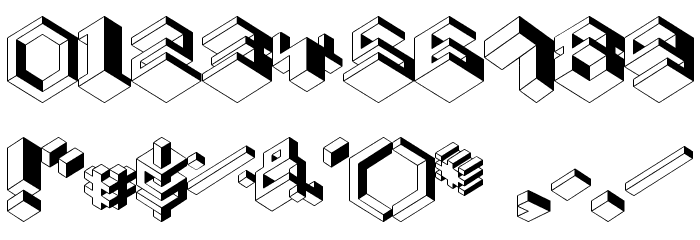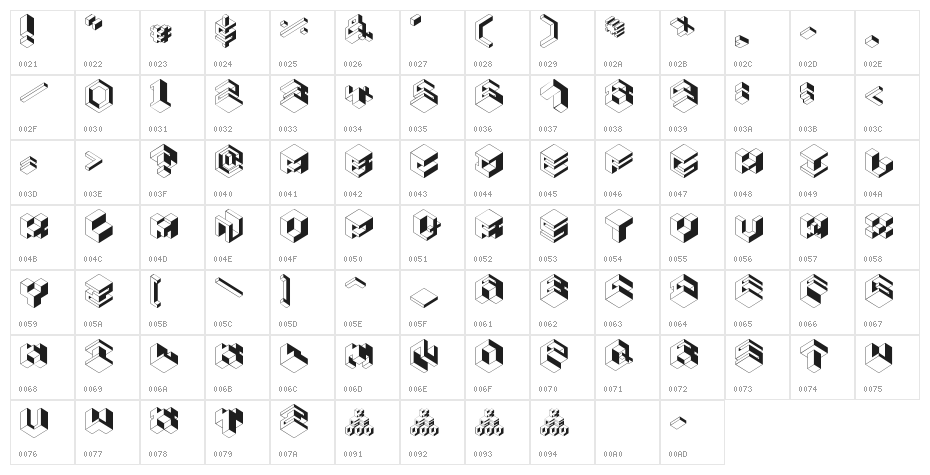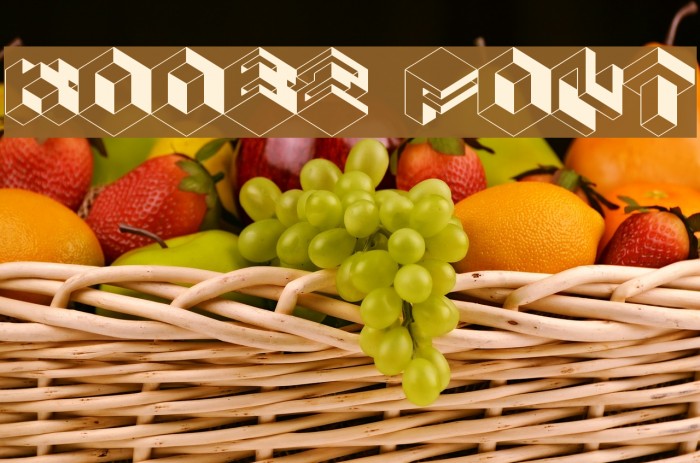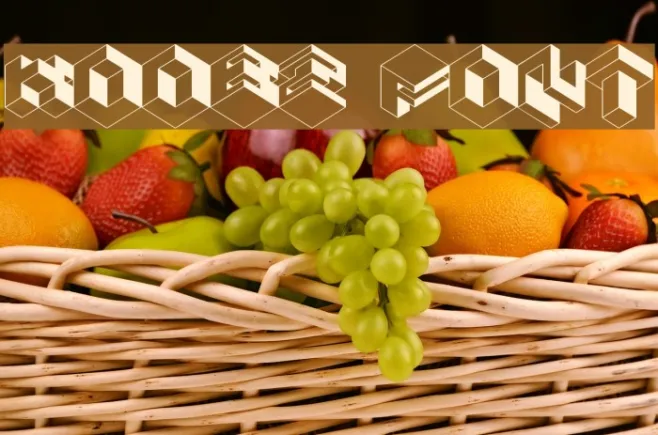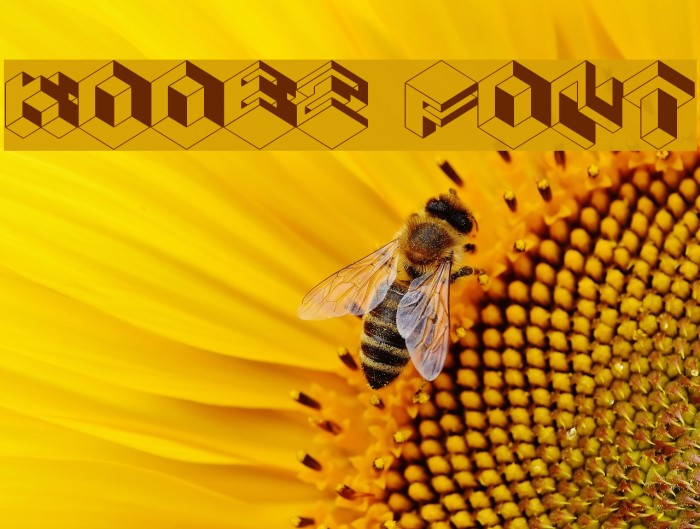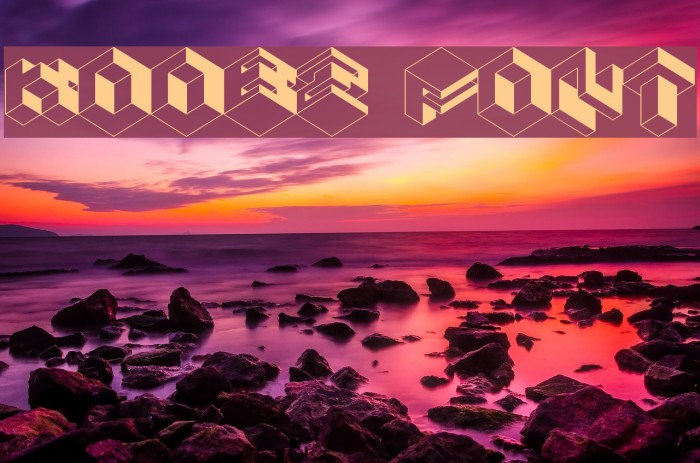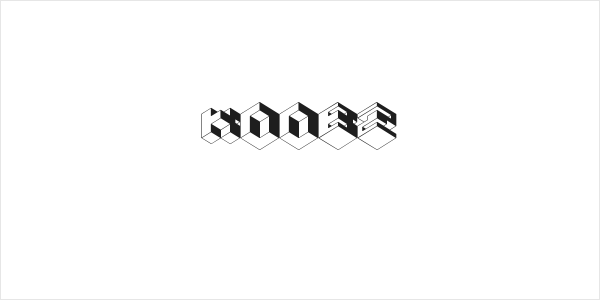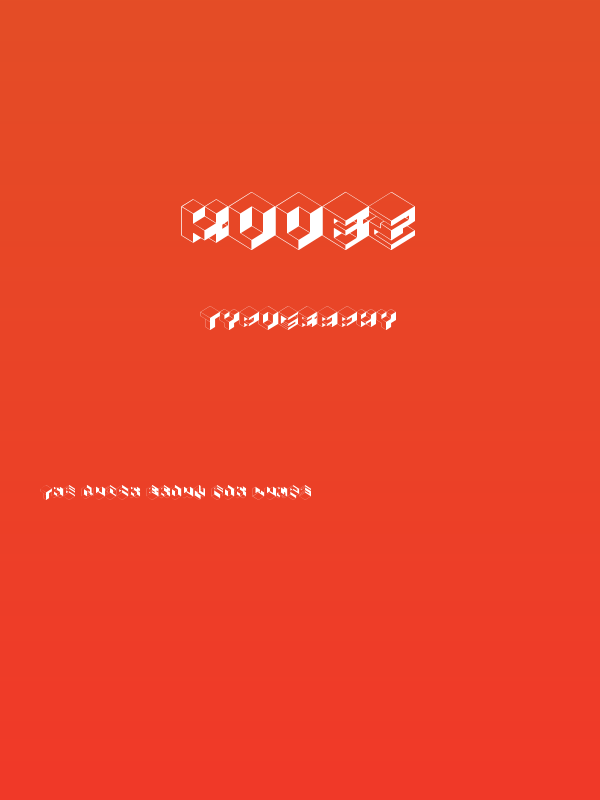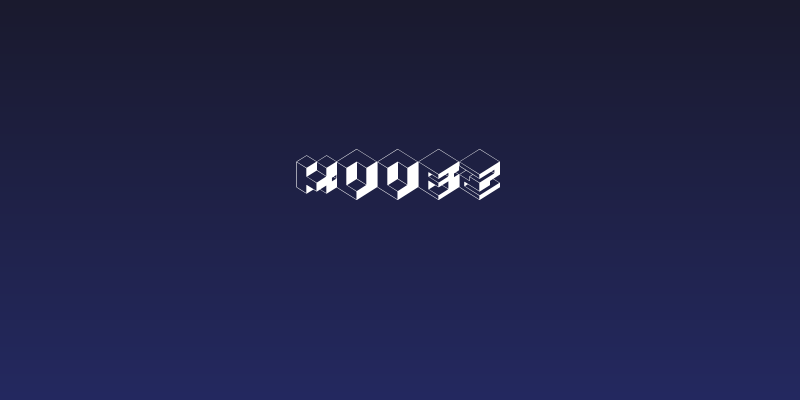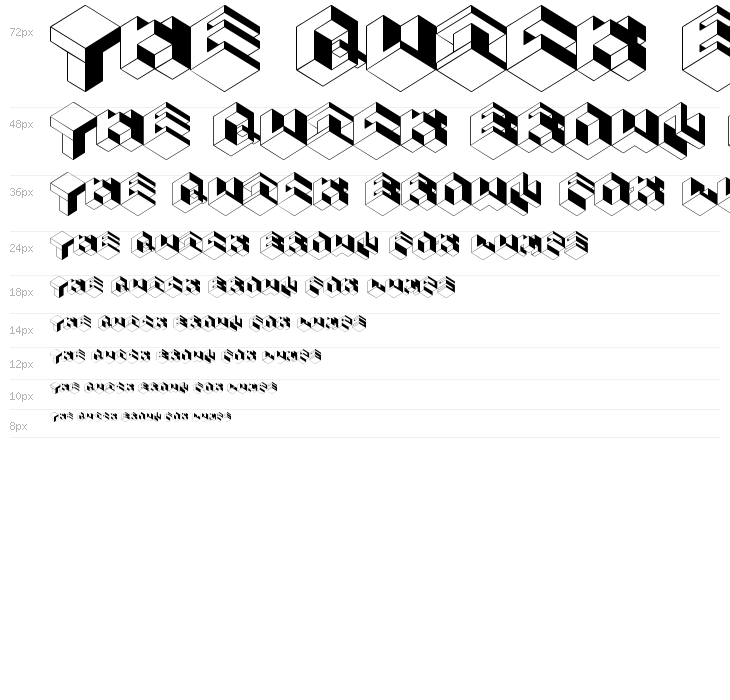
koobz Font
koobz Description
This font features a bold, three-dimensional geometric design that gives each character a blocky, architectural appearance. The letters are constructed with sharp angles and clean lines, creating a sense of depth and structure. The use of shadowing and layering enhances the 3D effect, making the characters appear as if they are built from interlocking blocks. This style is highly distinctive and eye-catching, suitable for projects that require a strong visual impact. The font maintains consistency across uppercase, lowercase, numbers, and special characters, ensuring a cohesive look.
| Proposed Projects | Ideal for video game titles, tech branding, futuristic posters, and architectural designs. |